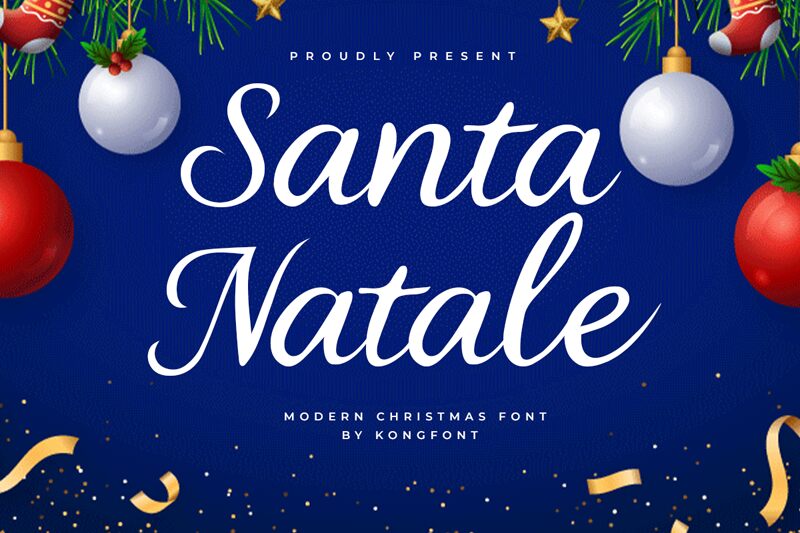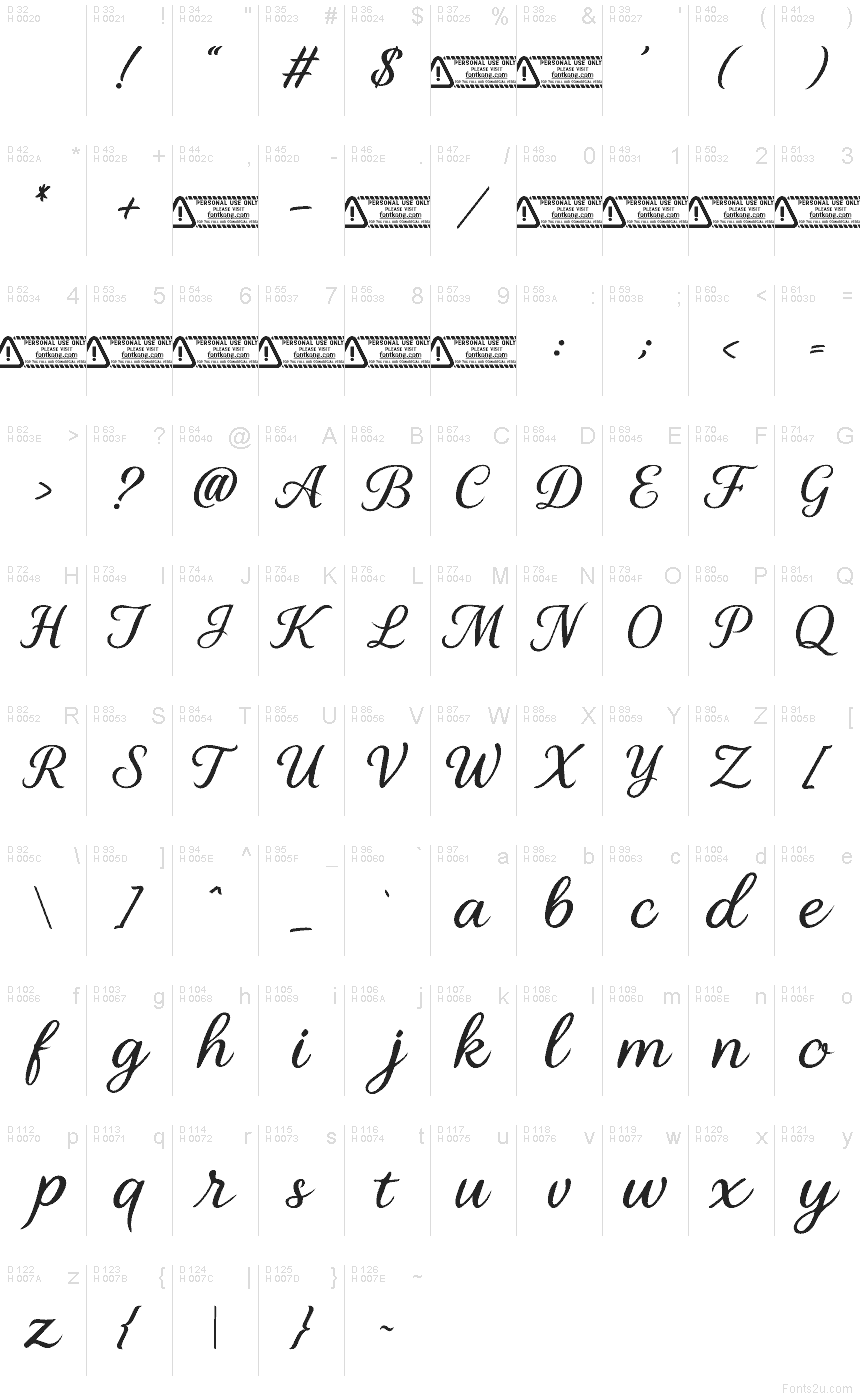
Santa Natale font by Kong Font is a free holiday handwritten script typeface that feels like it’s been penned on a crisp Christmas card. Its smooth, looping curves and gentle rightward slant give each word a warm, personal touch, like a carefully written gift tag. The letters connect with an easy rhythm, balancing elegance with just enough whimsy to feel festive rather than formal.
Using Santa Natale, your Christmas designs instantly pick up a cozy, storybook charm. This free font shines on greeting cards, gift tags, seasonal logos, party invitations, product packaging, and social media posts for holiday campaigns. Set it large to show off the flowing strokes, and pair it with a simple sans serif for body text so the script remains the star.